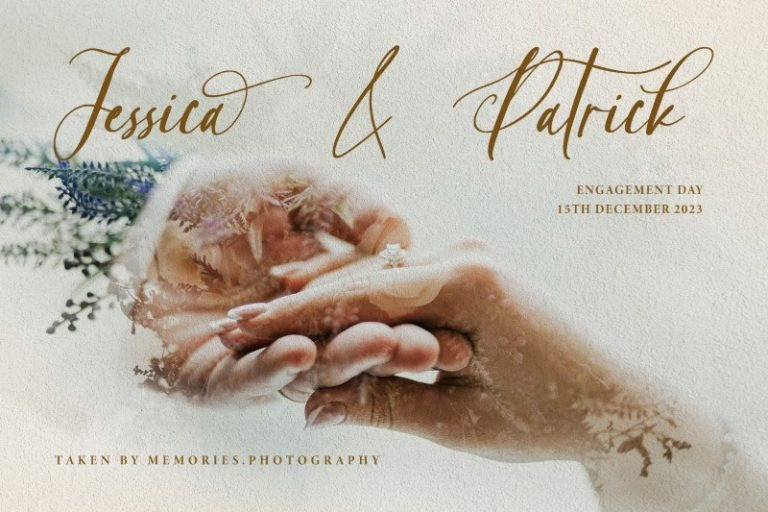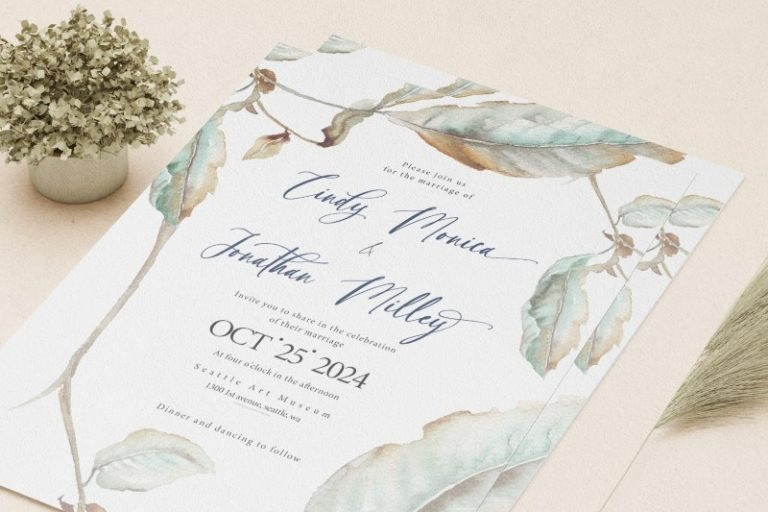
Couture Facile Font
Couture Facile Font is a handwriting-like script font to add combinations of beauty and styles to your designs properly. Its dissimilar, more natural shapes looking spontaneously written are the font’s main characters. In addition, its letters’ details show high contrasts in curvy, sharp scratches on the letters’ edges. Couture Facile shows personal, elegant, creative impressions to the designs and is suitable to apply for either big or small text sizes due to its great legibility. You can also enjoy the available features here.